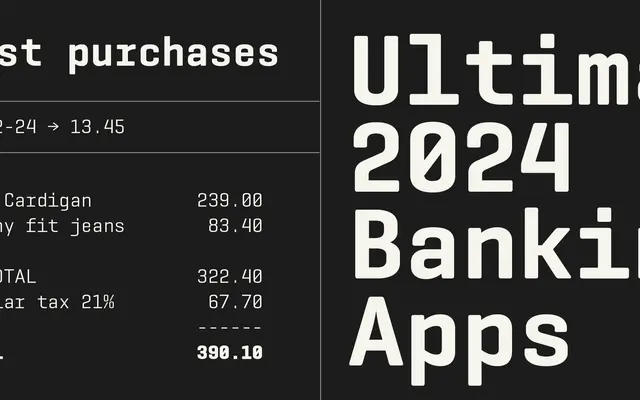
Geogrotesque Mono
A fixed-width companion to Geogrotesque, in seven weights with a parallel underscored subfamily, keeping the rounded terminals of the original.
Designed as the monospaced counterpart to Emtype's Geogrotesque, this family carries over the rounded stroke endings that give the original its warmer, less clinical character. Fourteen styles cover seven weights from Thin to Bold, each mirrored by an underscored variant, with variable font versions included in the family. The combination of fixed-width spacing and geometric forms makes it suited to data tables and technical documentation as well as packaging or branding where a structured, slightly retro-technical tone is wanted.
A fixed-width companion to a geometric grotesque, with rounded terminals that soften the mechanical character typical of monospaced typefaces.